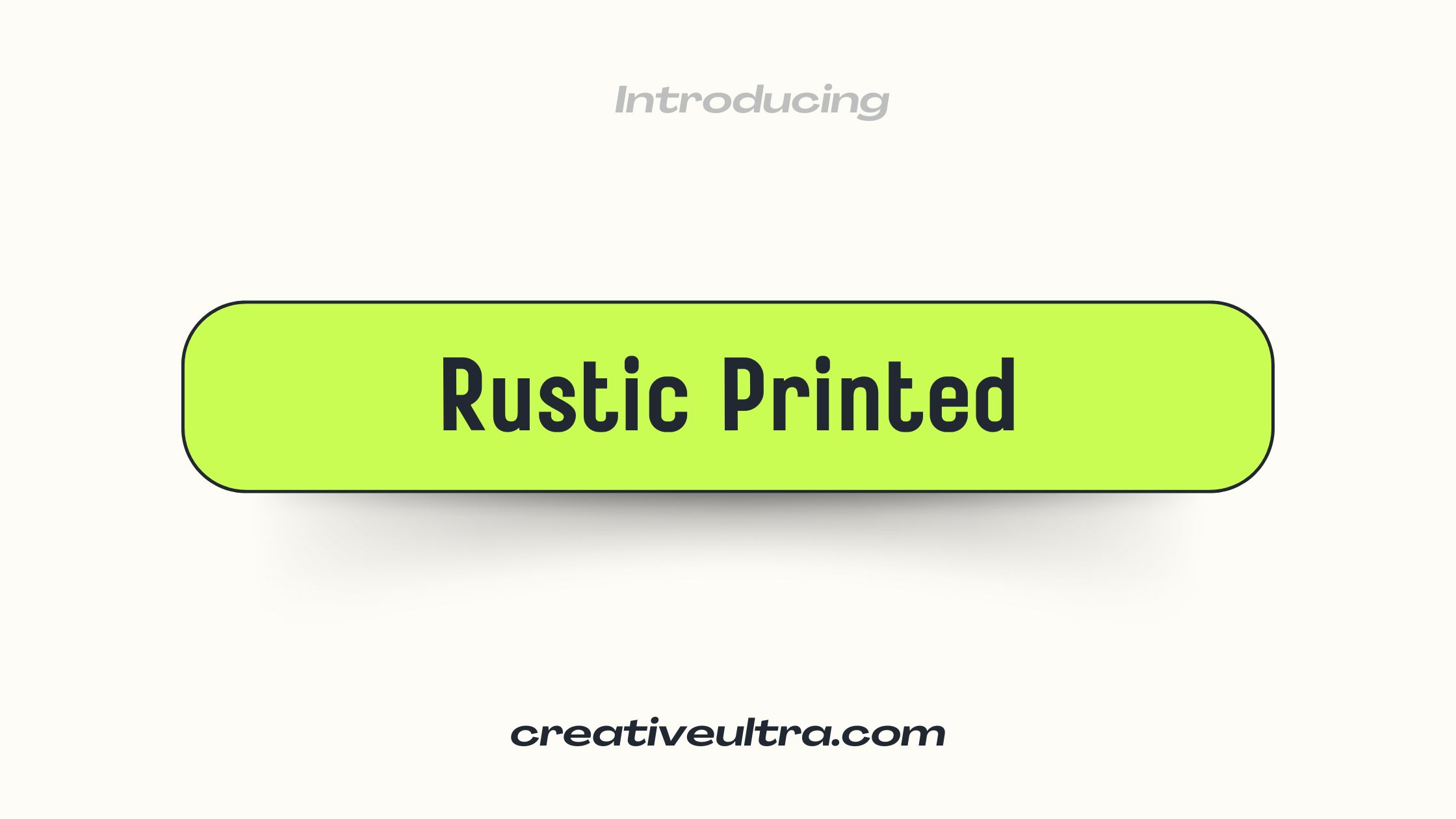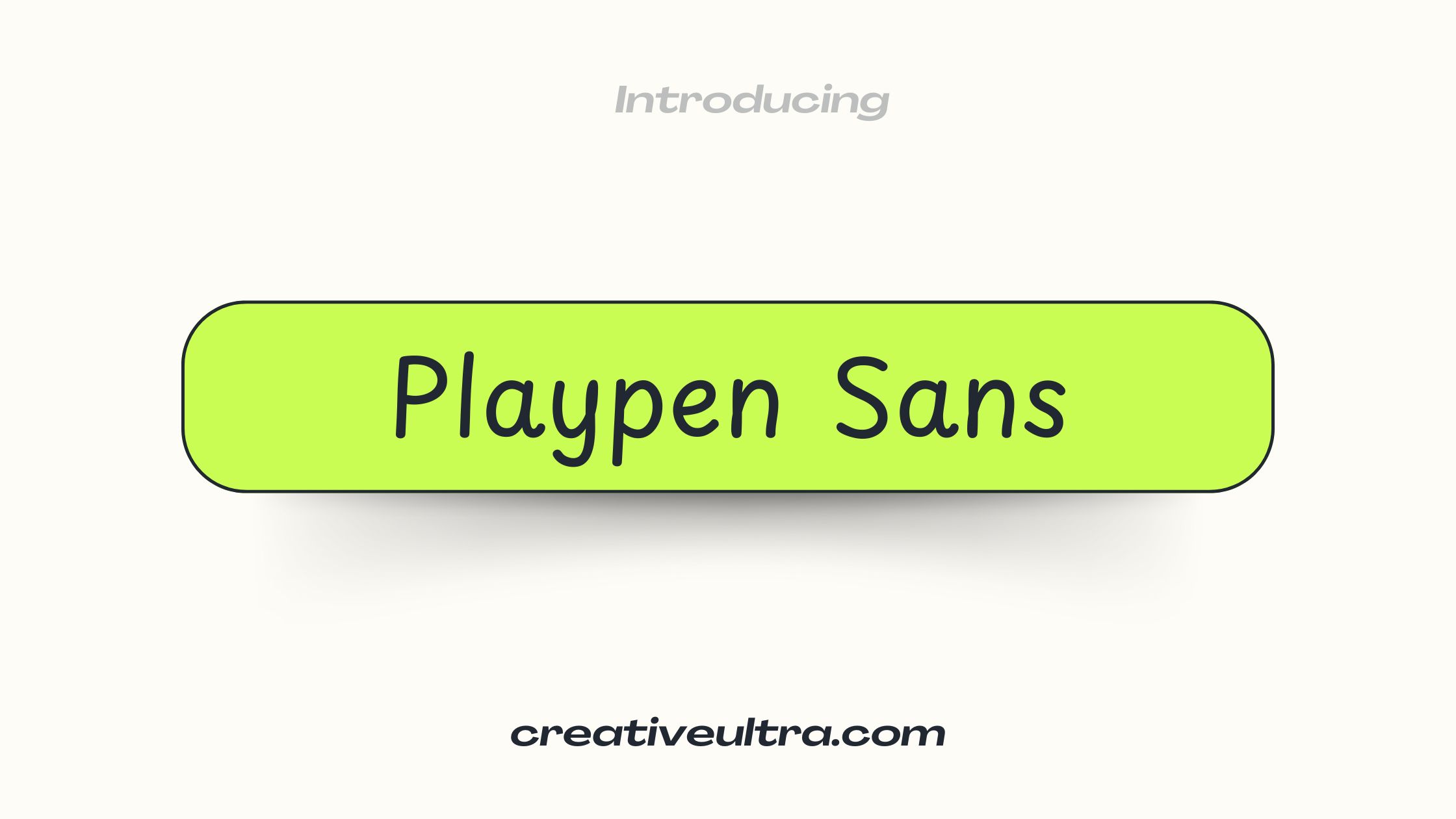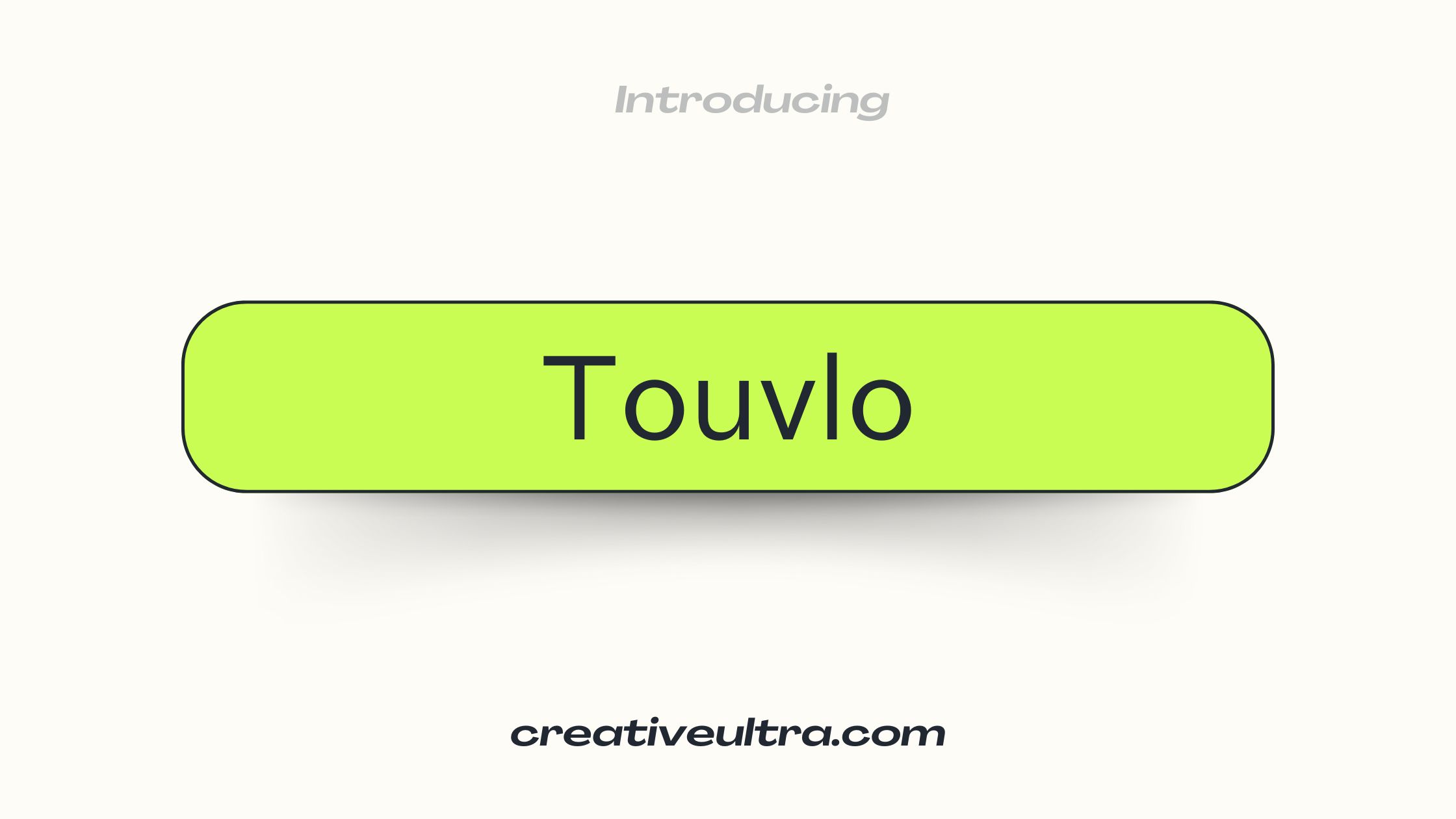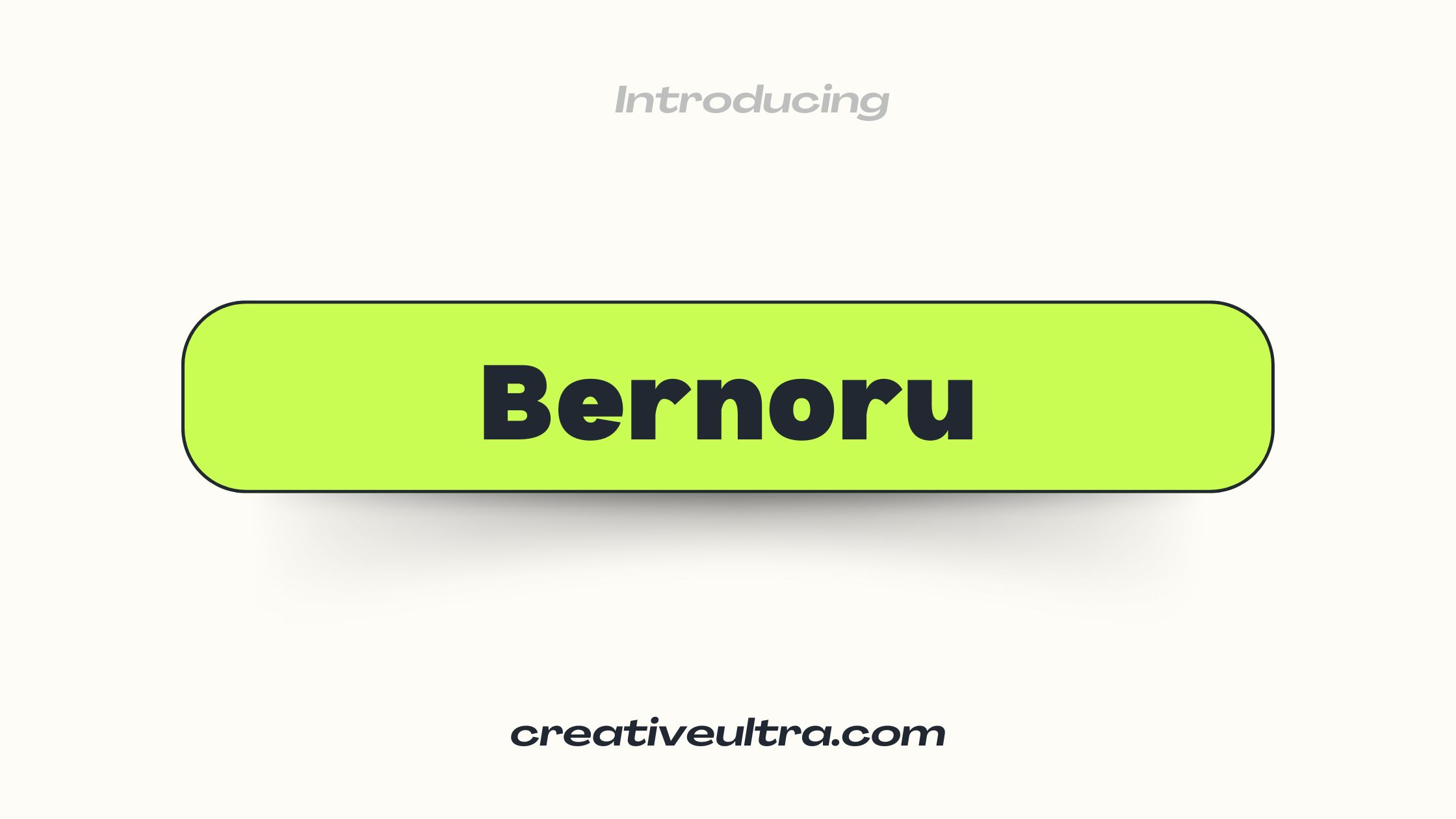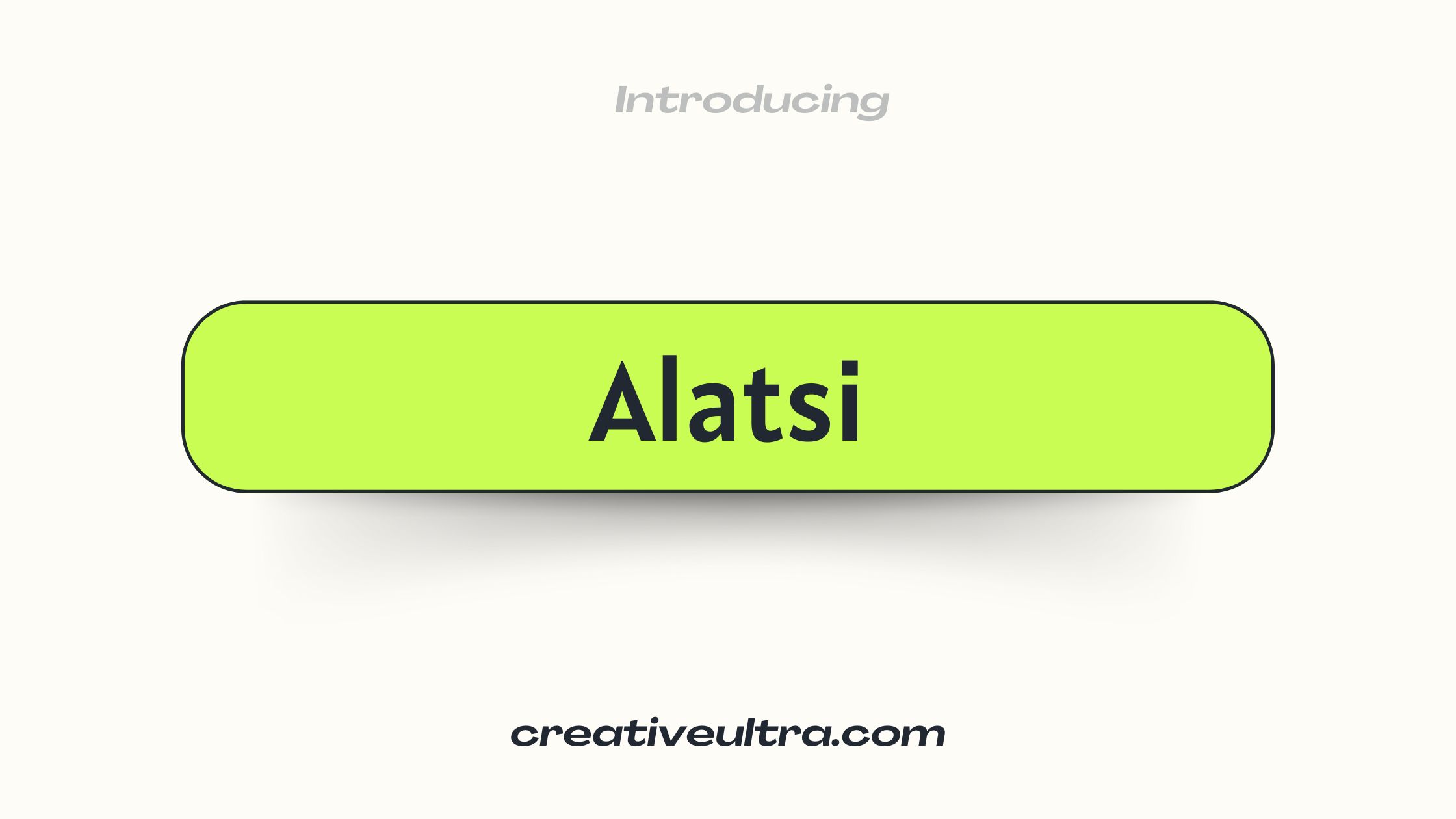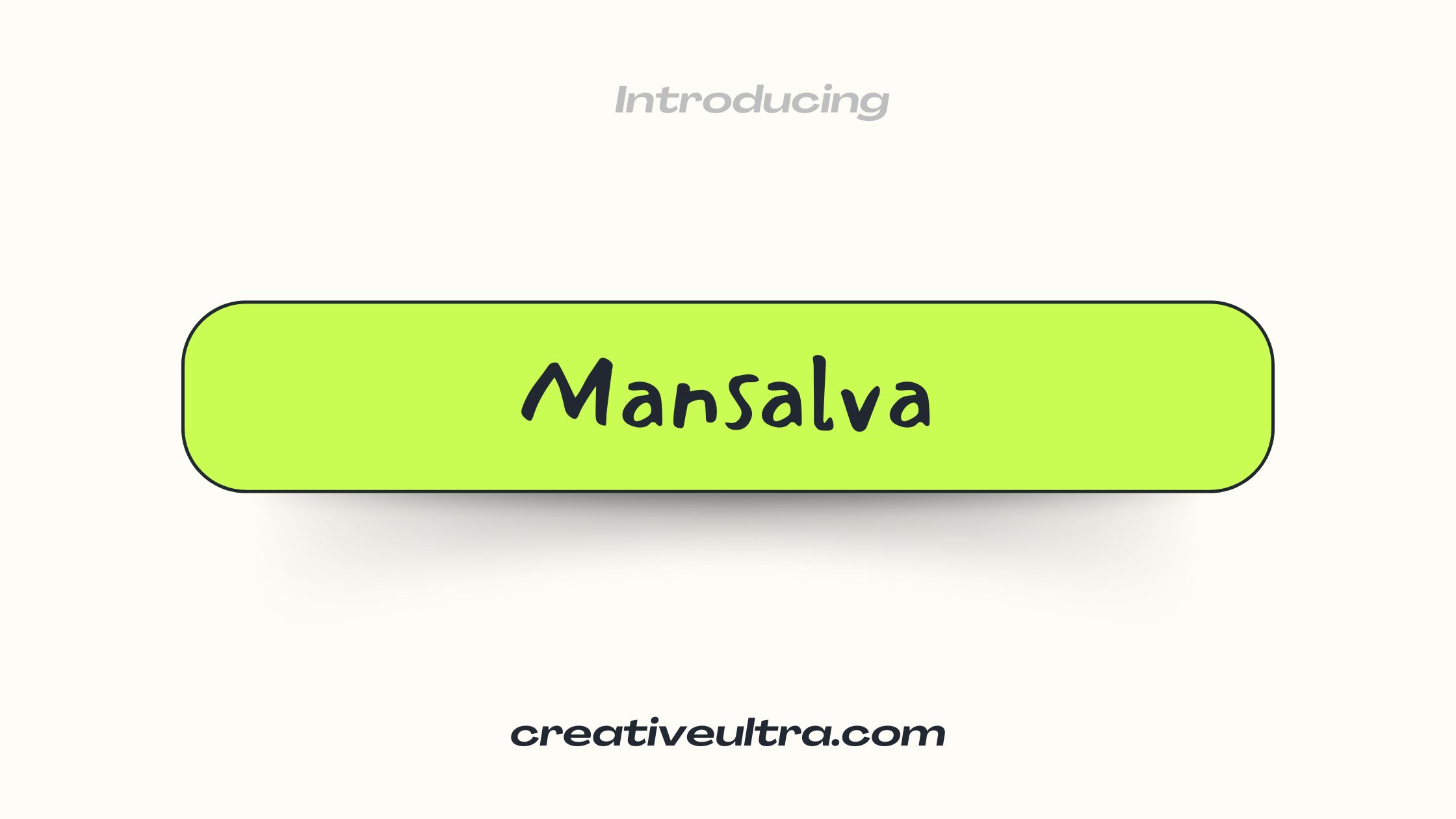
9 Free Fantasy Fonts on Canva You Will Love
If you’re looking for free and beautiful fantasy fonts on Canva, this is the collection for you. These fonts can be used for a variety of creative projects, including storybooks, posters, and social media posts. With so many designs available from Canva, it is simpler to locate something special and magical.
This collection features unique and striking mix of classic and playful fonts. While others, like Touvlo Font and Bernorr Font, give a modern and clean feel, fonts like Rustic Printed Font and Playpen Sans Font give your design a fun, bold look. There is something for every project whether your taste is for something whimsical or sleek.
Mansalva and Alatsi provide more sophisticated, artistic styles; Fonts like Schoolbell and Maleah bring a handwritten, casual vibe. Canva Sans Font rounds out the list with a basic, adaptable choice suitable for almost anything. Let’s have a look at these amazing typefaces!
Best Free Fantasy Fonts on Canva
Rustic Printed Font
The Rustic Printed Font immediately transports you to another time with its weathered and rough edges. It looks like a font pulled straight from an ancient manuscript or a forgotten scroll, making it ideal for historical fantasy projects. This font’s textured, slightly uneven appearance gives a realistic “printed on parchment” feel.
Best Uses:
• Fantasy book covers
• Medieval-themed party invitations
• RPG character sheets
Rustic Printed Font is perfect for designs where you want to evoke a sense of history and timelessness, particularly those with a medieval or adventure-based theme.
Playpen Sans Font
For a more playful and whimsical take on fantasy, Playpen Sans Font is a great choice. Its soft curves and childlike simplicity make it ideal for lighthearted fantasy themes, such as children’s books or party invitations. Despite being more casual, it still manages to bring a magical and fun feeling to the table.
Best Uses:
• Children’s fantasy books
• Fantasy-themed greeting cards
• Party invitations with a fantasy theme
Playpen Sans is the font that brings a smile to your face. It fits well with youthful fantasy projects where creativity and imagination run wild.
Touvlo Font
If you need something bold that still carries a touch of magic, Touvlo Font is a fantastic option. Its thick, heavy letters stand out while still maintaining a mystical flair. It’s ideal for headings and titles, particularly for designs that demand attention, like posters or banners for fantasy movies or video games.
Best Uses:
• Movie titles for fantasy films
• Event posters for fantasy conventions
• Epic video game covers
Touvlo Font’s strong and commanding look makes it perfect for anything that needs to grab the viewer’s attention, while still staying within the fantasy genre.
Bernoru Font
Looking for something more quirky and fairy-tale-like? Bernoru Font is bursting with personality. Its decorative serifs and whimsical design add a hand-drawn, enchanted feel to your projects. The font captures the lighthearted essence of fairy tales and magical stories.
Best Uses:
• Fairy tale book illustrations
• Fantasy-themed social media posts
• Invitations for magical or whimsical events
Bernoru Font works beautifully when you want to inject some playfulness and imagination into your fantasy designs.
Canva Sans Font
Canva Sans Font might seem like an ordinary font, but its simplicity and versatility make it an excellent pairing option for more elaborate fantasy fonts. This font works particularly well for body text, allowing you to combine readability with the decorative flair of other fantasy typefaces.
Best Uses:
• Body text for fantasy novels or designs
• Subtitles or captions in fantasy posters
• Pairing with decorative fonts for balance
While Canva Sans doesn’t have the fantastical elements of the other fonts, it serves as a solid foundation that helps keep your designs clear and professional.
Alatsi Font
For a sleek, modern twist on a fantasy font, Alatsi Font offers a geometric and structured design while still feeling mystical. Its clean lines and smooth curves give it an elegant, professional look that fits perfectly into formal fantasy designs such as logos, invitations, and movie titles.
Best Uses:
• Fantasy business logos
• Event invitations for fantasy-themed galas
• Fantasy-themed movie subtitles
Alatsi Font is ideal for adding a touch of professionalism to your designs without losing that magical element.
Mansalva Font
If you’re after something more artistic and adventurous, the Mansalva Font fits the bill perfectly. Its brushstroke appearance adds a sense of movement and spontaneity, making it a great choice for fantasy-themed events or artistic designs. This font feels creative and free, ideal for out-of-the-box projects.
How Can I Pair Fantasy Fonts for a Balanced Design?
To create a balanced design, pair decorative fantasy fonts like Rustic Printed or Bernoru with simpler fonts like Canva Sans or Alatsi. This allows you to maintain readability while adding a magical touch.